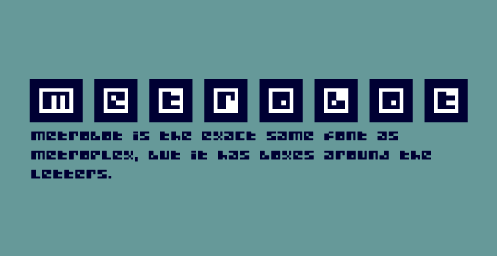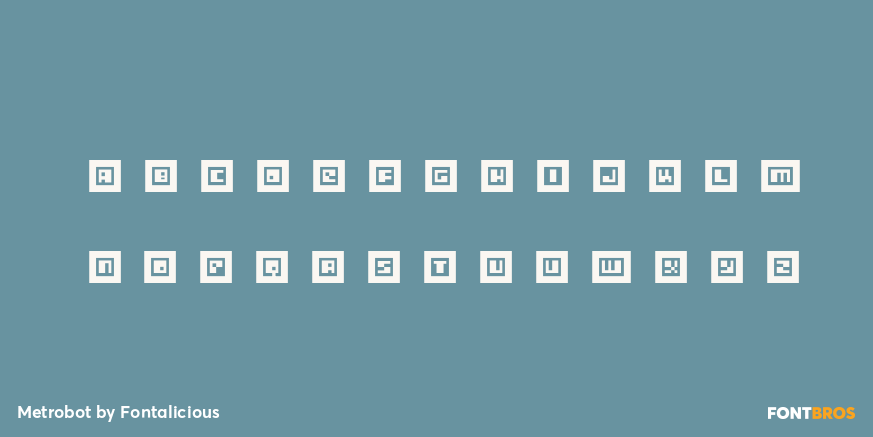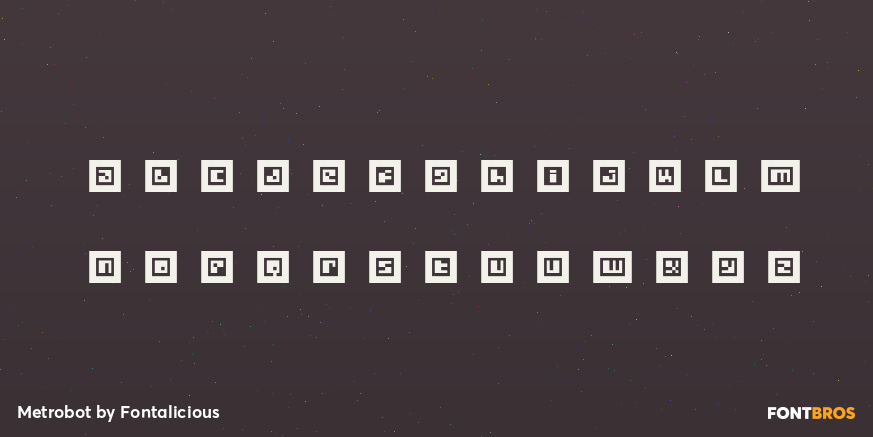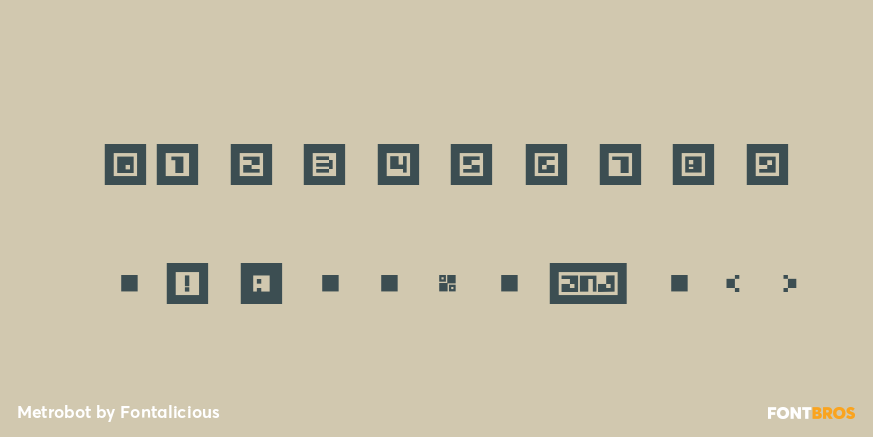
Metrobot
Font Family by Fontalicious
Could this font get any more krazy? Totally! But I figured instead of going nuts, I would just make some squares around the letters and be done with it.